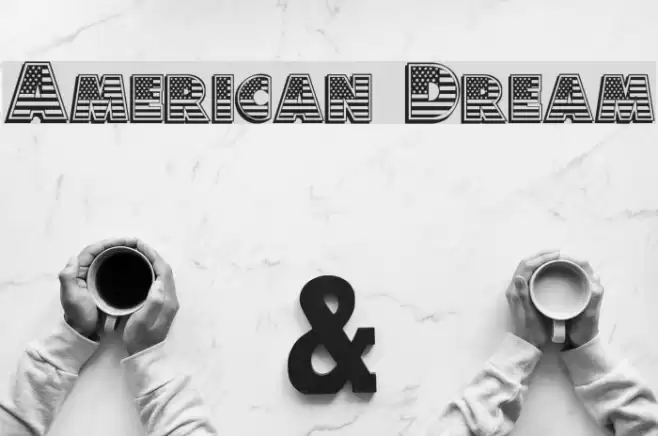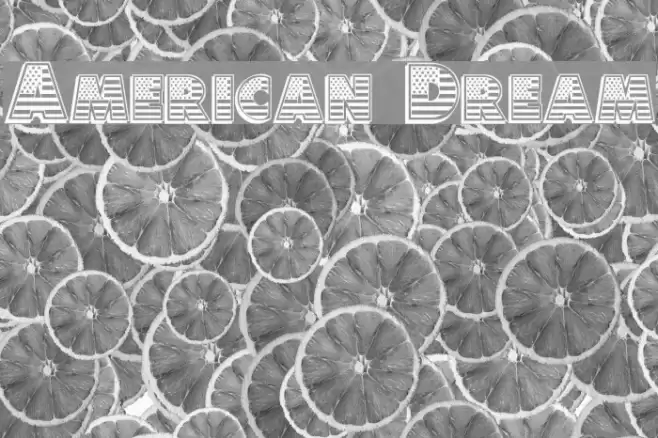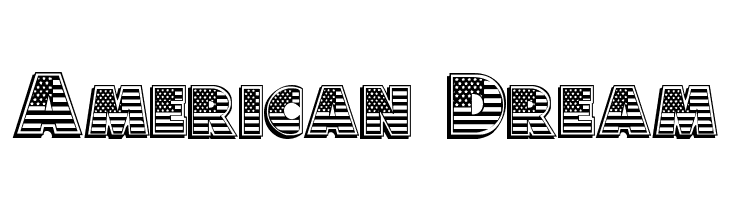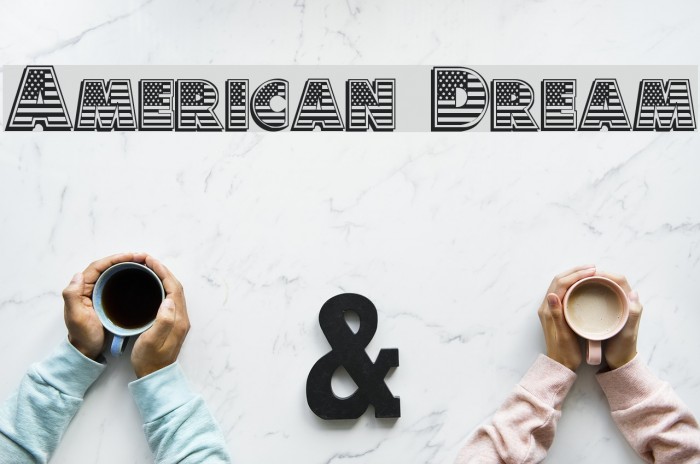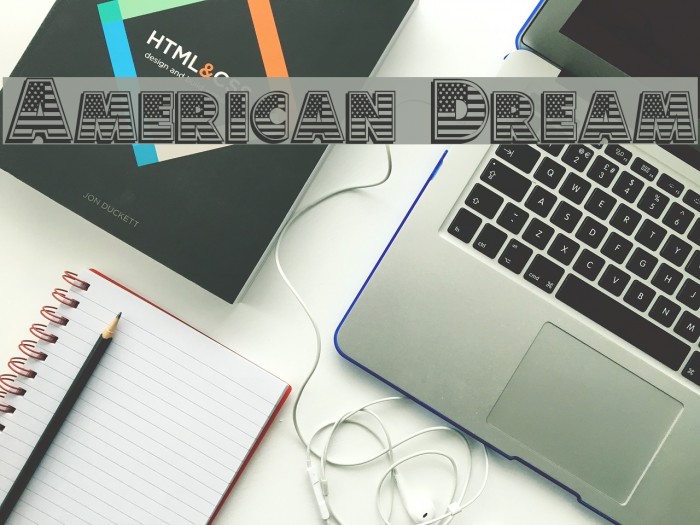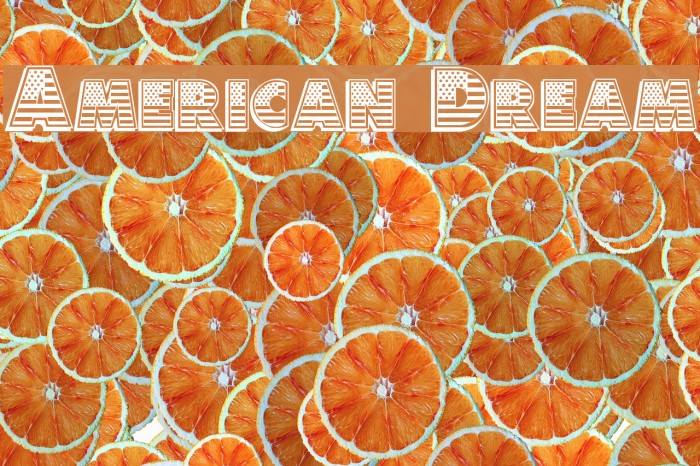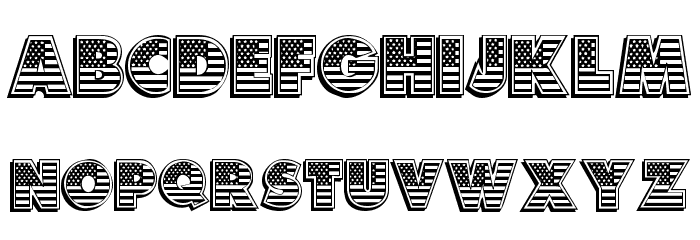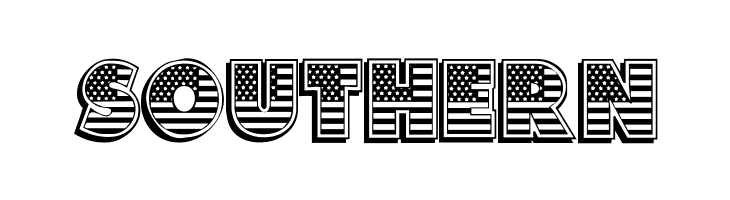
American Dream Font
American Dream Description
This font features a bold and decorative style with a patriotic theme. Each letter is designed with stars and stripes reminiscent of the American flag, giving it a unique and eye-catching appearance. The uppercase letters are prominently styled, making them suitable for attention-grabbing headlines or thematic designs. The font's design is consistent across all characters, maintaining a cohesive look that emphasizes its decorative nature. The absence of lowercase letters and numbers suggests a focus on impactful, statement-making text rather than body copy.
A bold, decorative font with stars and stripes for a patriotic theme from Images & Symbols fonts.
- Proposed Projects: Ideal for patriotic event posters, themed merchandise, or any design celebrating American culture.